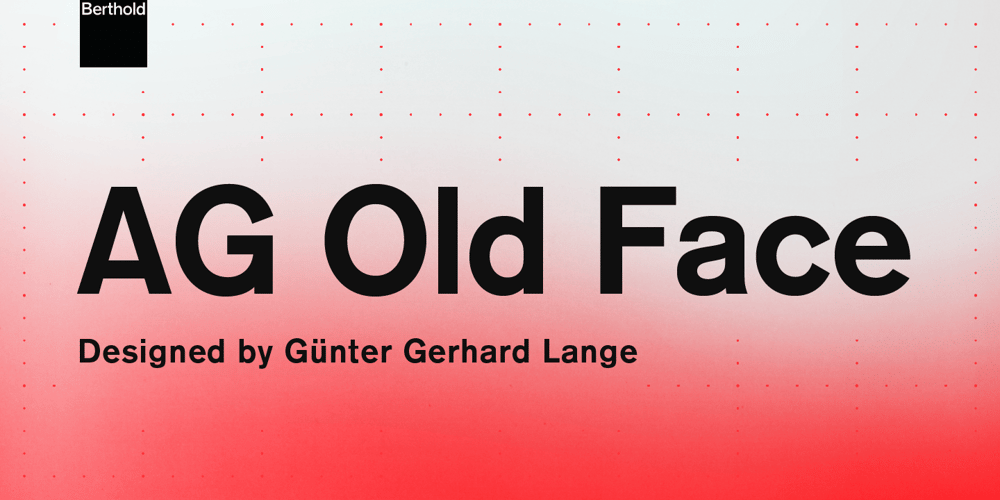
AG Old Face Font Family was designed by Günter Gerhard Lange and published by Berthold. AG Old Face contains 3 styles and family package options. In 1984 H. Berthold released this redraw of Akzidenz-Grotesk by Günter Gerhard Lange. This design emphasizes the 19th Century hand-setting roots of the original Akzidenz-Grotesk.